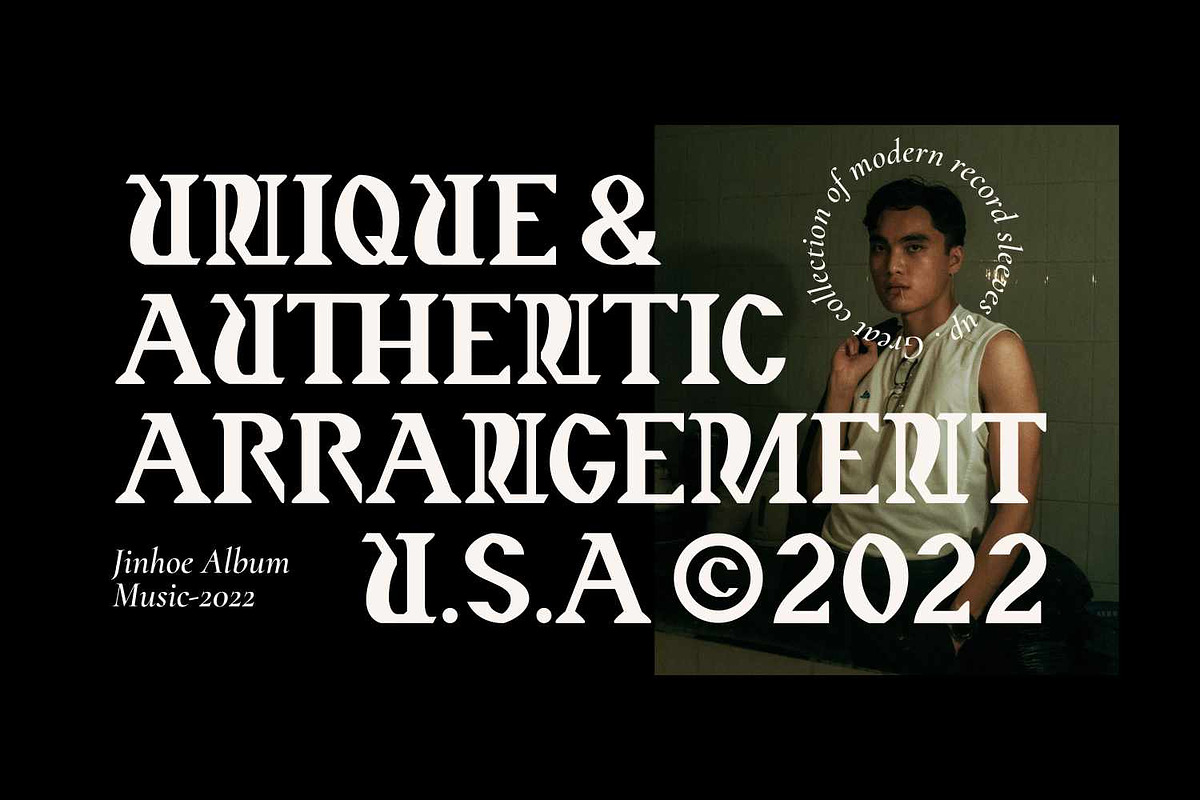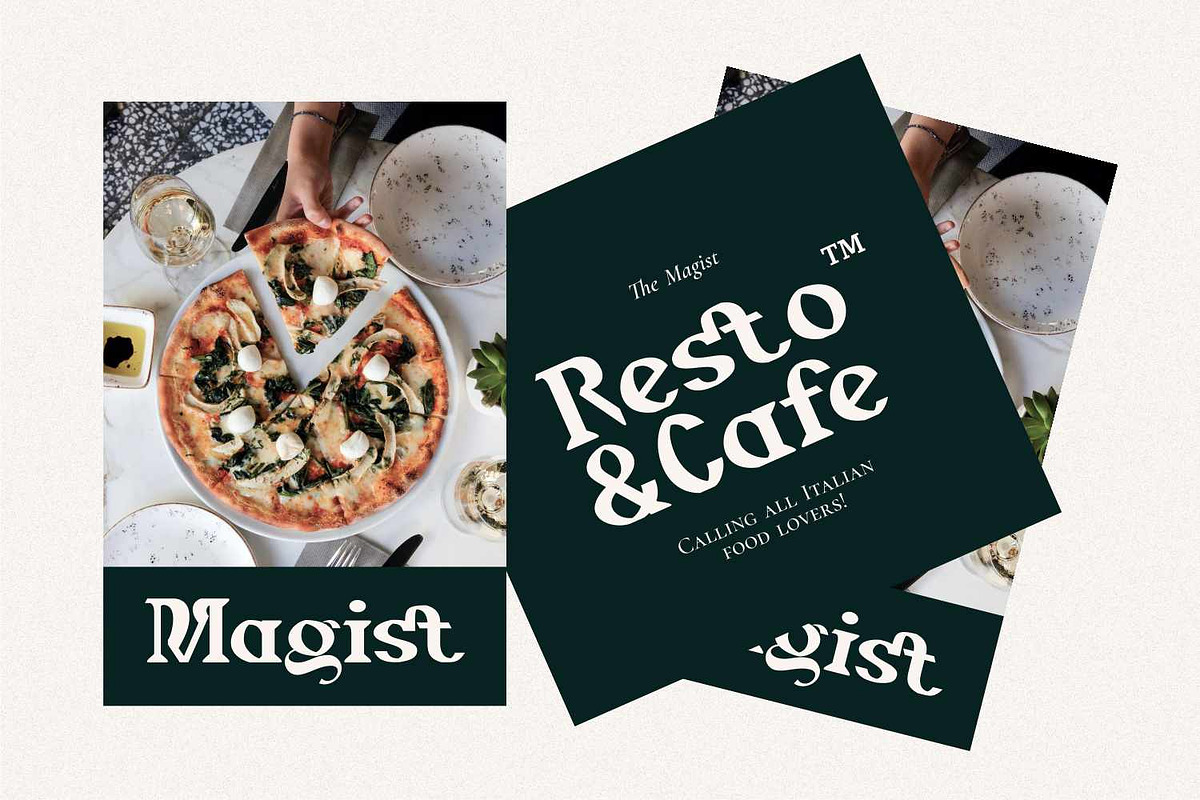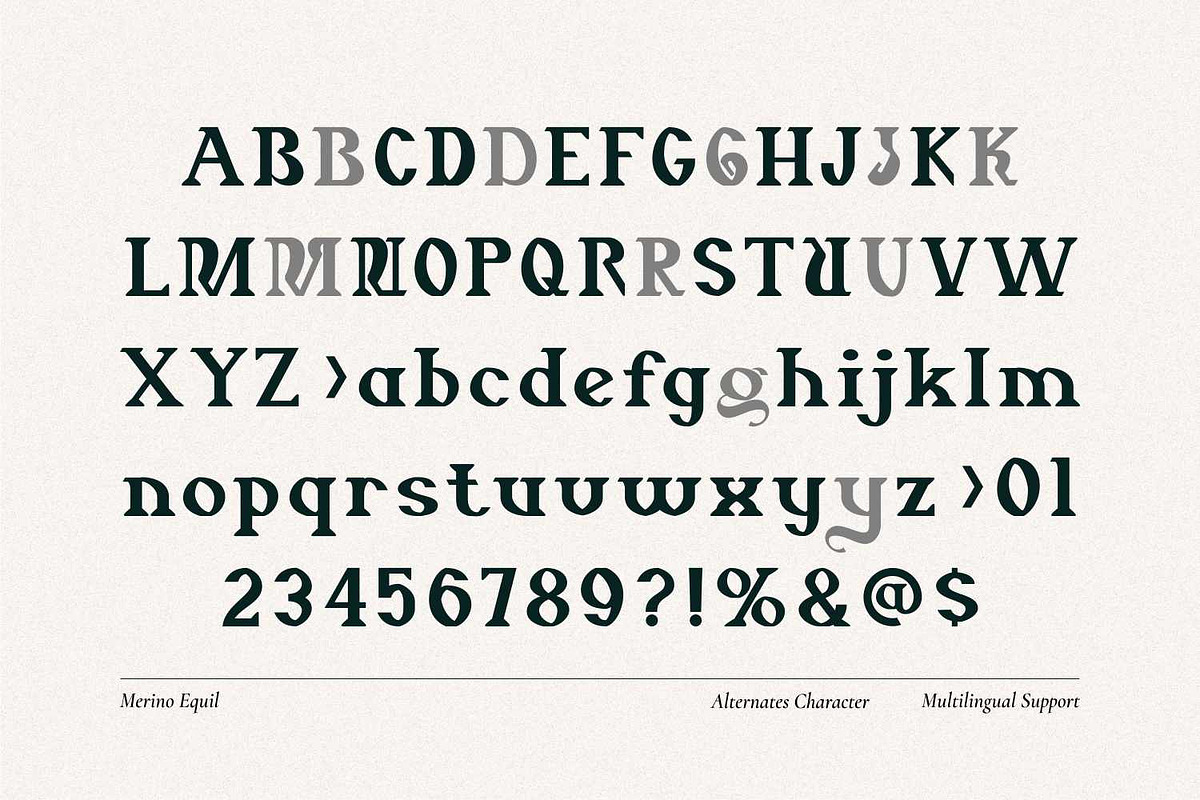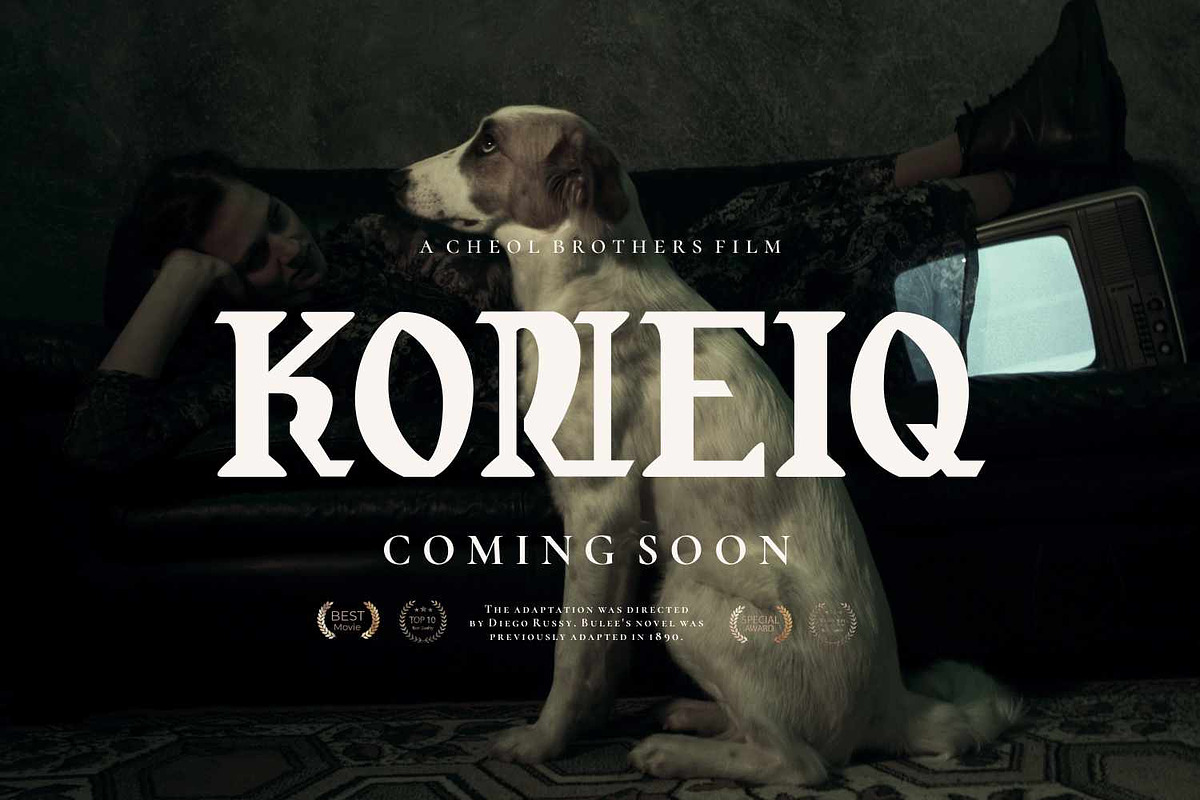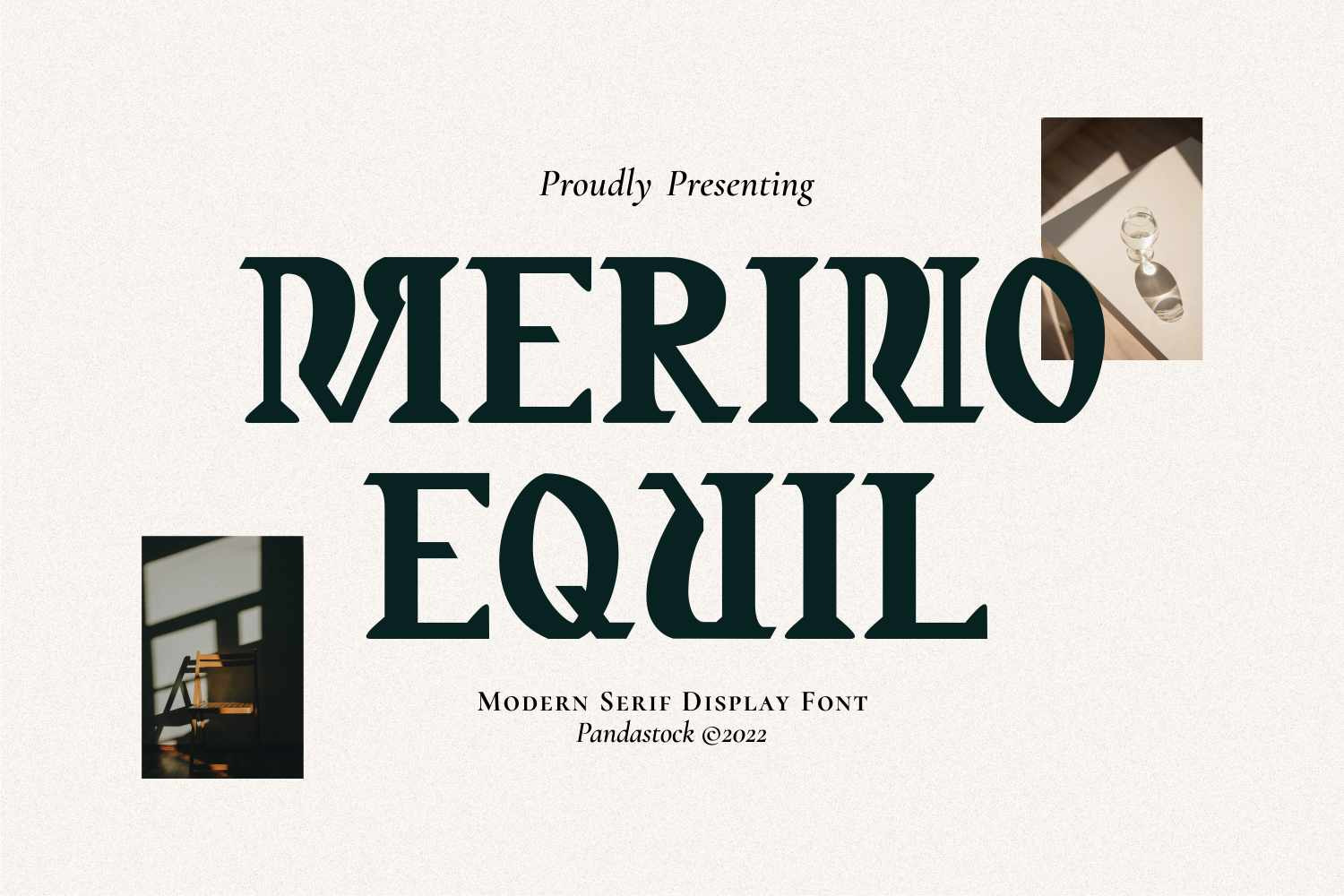
Merino Equil - Modern Serif Font
Merino Equil is a striking modern serif font that blends sharp, angular elegance. High contrast strokes, flared wedge serifs, and sharp interior cuts give it a sculpted, cinematic presence.
Perfect for carved, memorable logos, wordmarks, bold editorial headlines, posters, refined luxury branding, restaurant menus, gourmet packaging, boutique hotel identities, beauty labels, authoritative book covers, and formal certificates, badge, any project
If you're looking for an elegant serif that blends vintage charm with modern style, Merino Equil is the perfect choice!